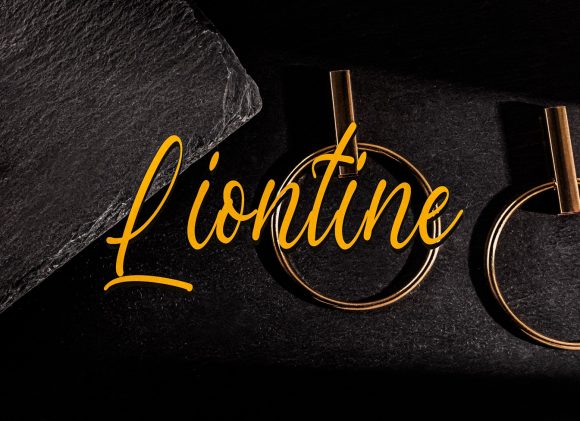
Liontine Font
About Liontine Font
Liontine is a gorgeous and flowing handwritten font, crafted to give your headlines and logotype projects a stylish touch. This font reads as strong, confident, and dynamic and can add tons of unique character to your designs.